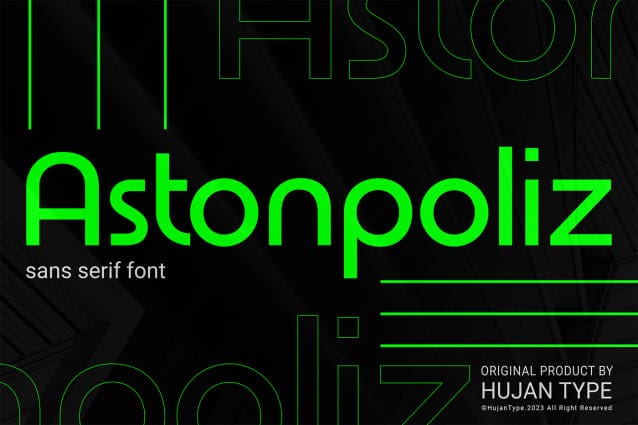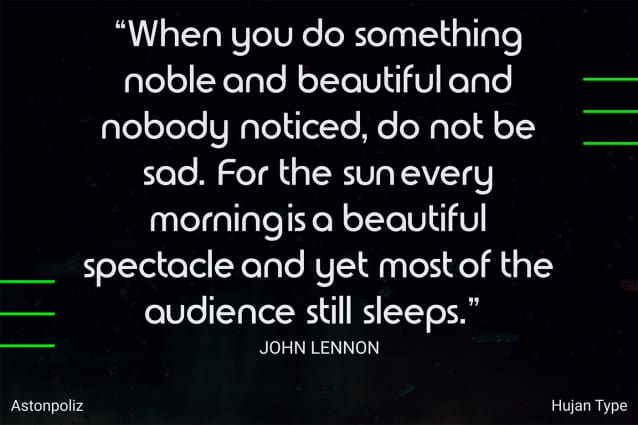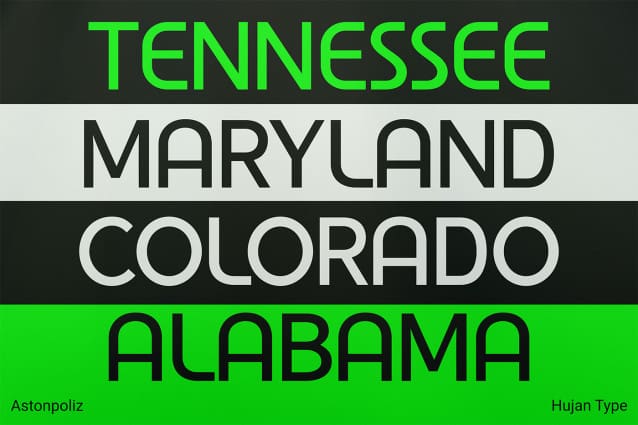
Astonpoliz Sans Font are based on geometric shapes and have no contrast between strokes. This font suitable for your modern style projects.
Astonpoliz Sans Font